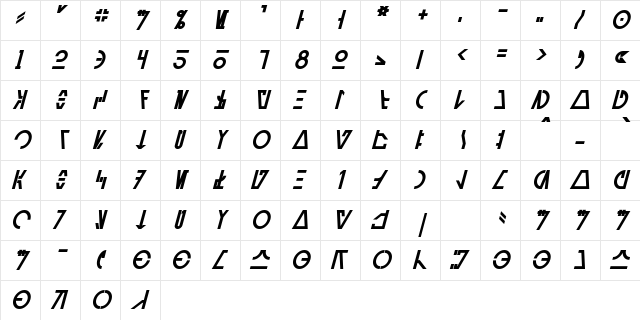
Aurebesh Cantina Bold Italic
| Foundry | Pixel Sagas |
| Designer | Neale Davidson |
Design Context for Aurebesh Cantina Typeface
Aurebesh Cantina offers clean, dependable letterforms without strong stylistic allegiance, making it a practical choice for designers who need flexibility. The slanted form adds forward momentum and visual energy. The heavy weight commands attention and anchors typographic hierarchies.
Pro Tip: Use Aurebesh Cantina for emphasis, pull quotes, and subheadings where its slanted energy can add rhythm to the layout.